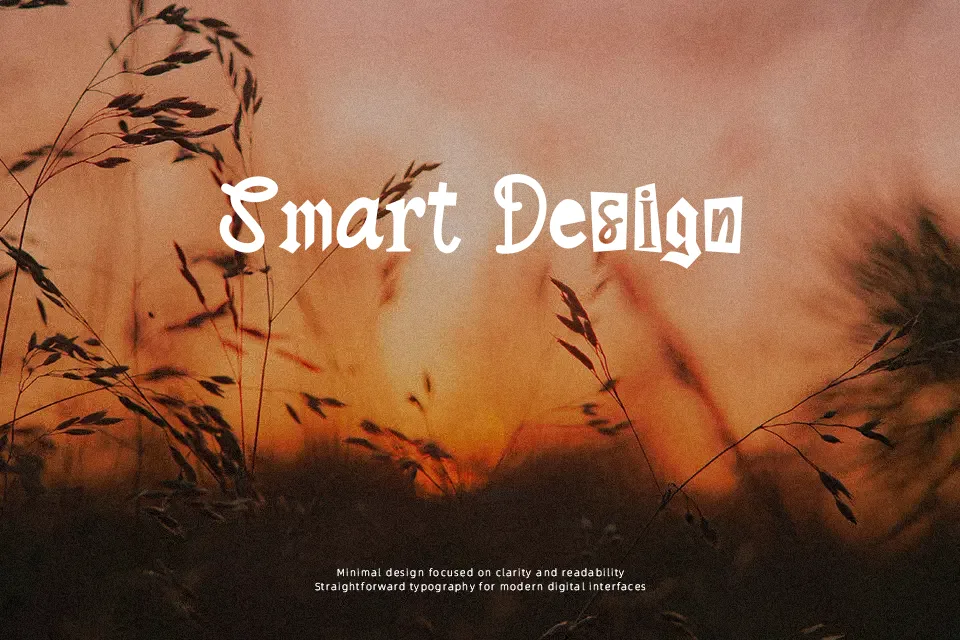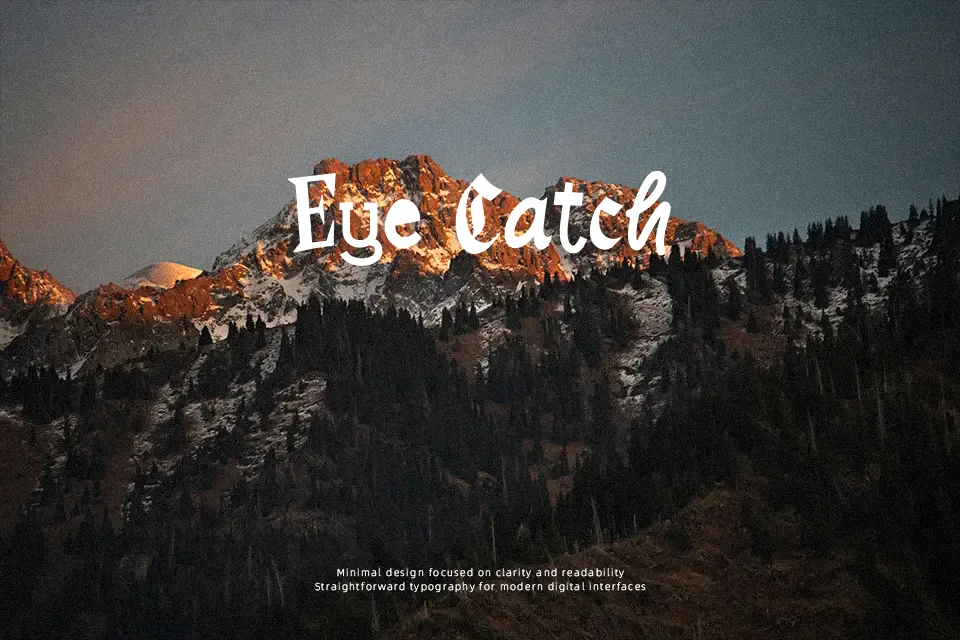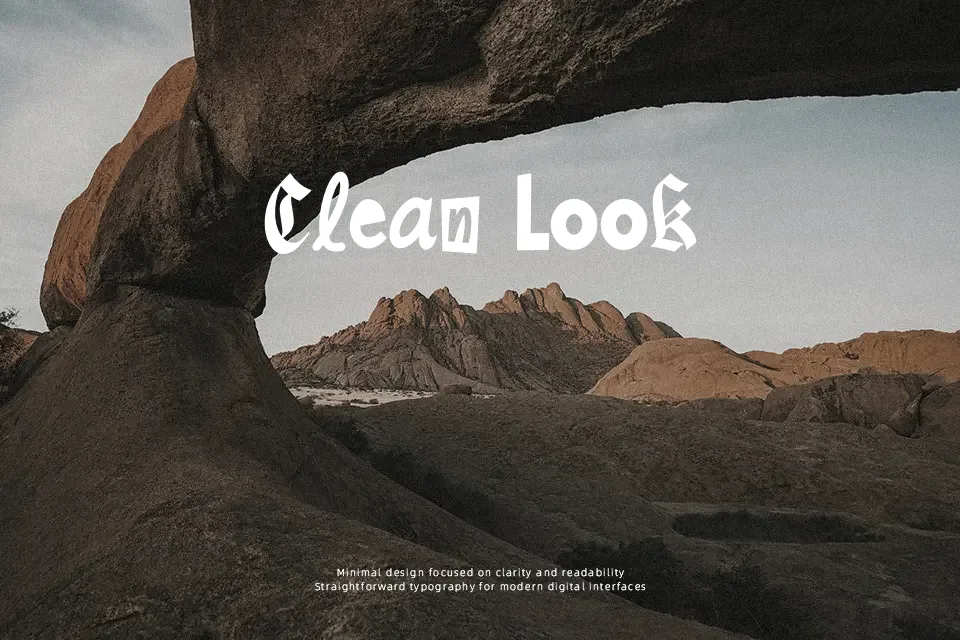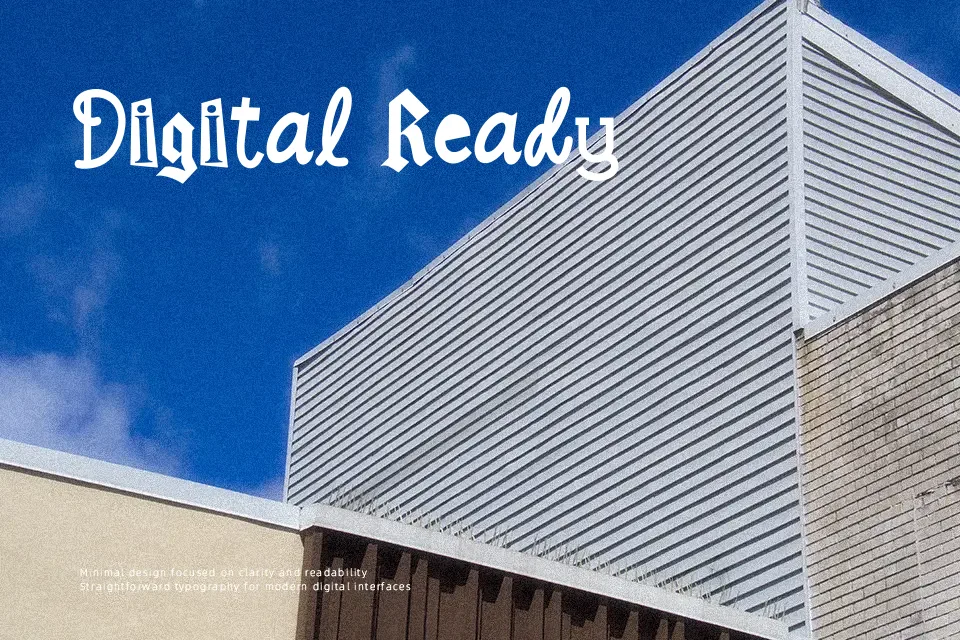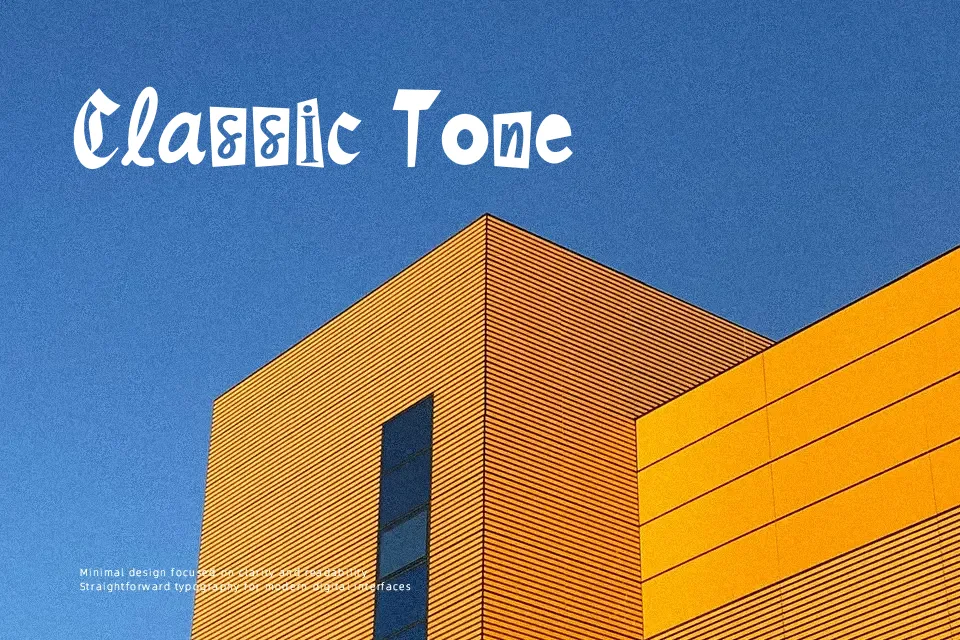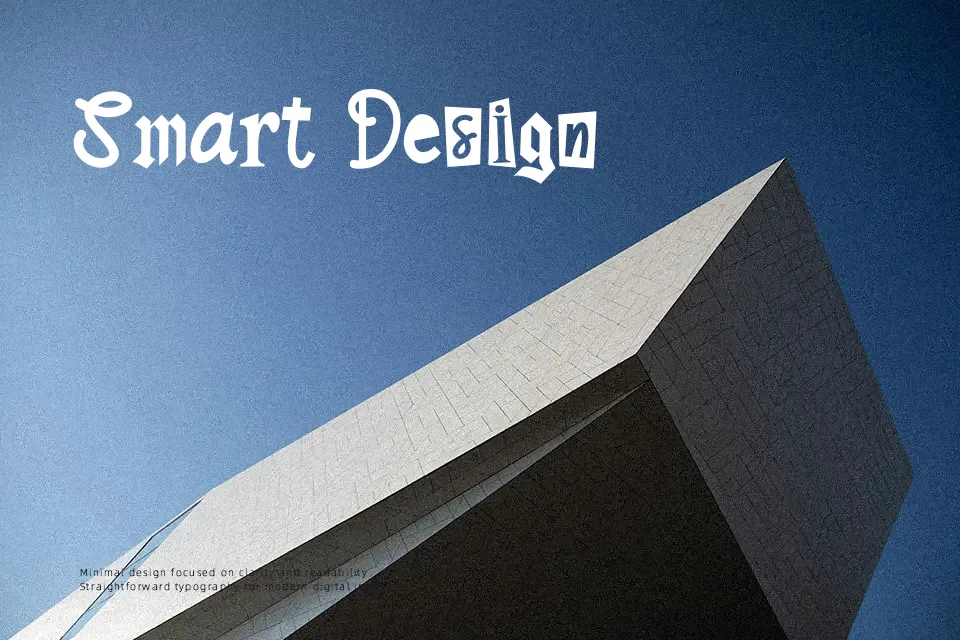
Sound Distortion Font
Sound Distortion Font uses distorted, uneven letterforms that create a deliberately unsettled display texture. Its strokes appear heavy and irregular, with altered proportions that make individual characters feel more expressive than uniform. Spacing is best treated generously in large headlines, where the unusual shapes remain easier to separate and read. The typeface fits poster titles, album artwork, and bold promotional graphics that need a rough visual edge. It is a practical choice for short statements rather than detailed copy, since the decorative forms become harder to scan at smaller sizes or across long passages.
Best For: music event posters,album cover titles,experimental apparel graphics,social media headlines
Perfect for headline, music, and poster, with a creative and decorative style.